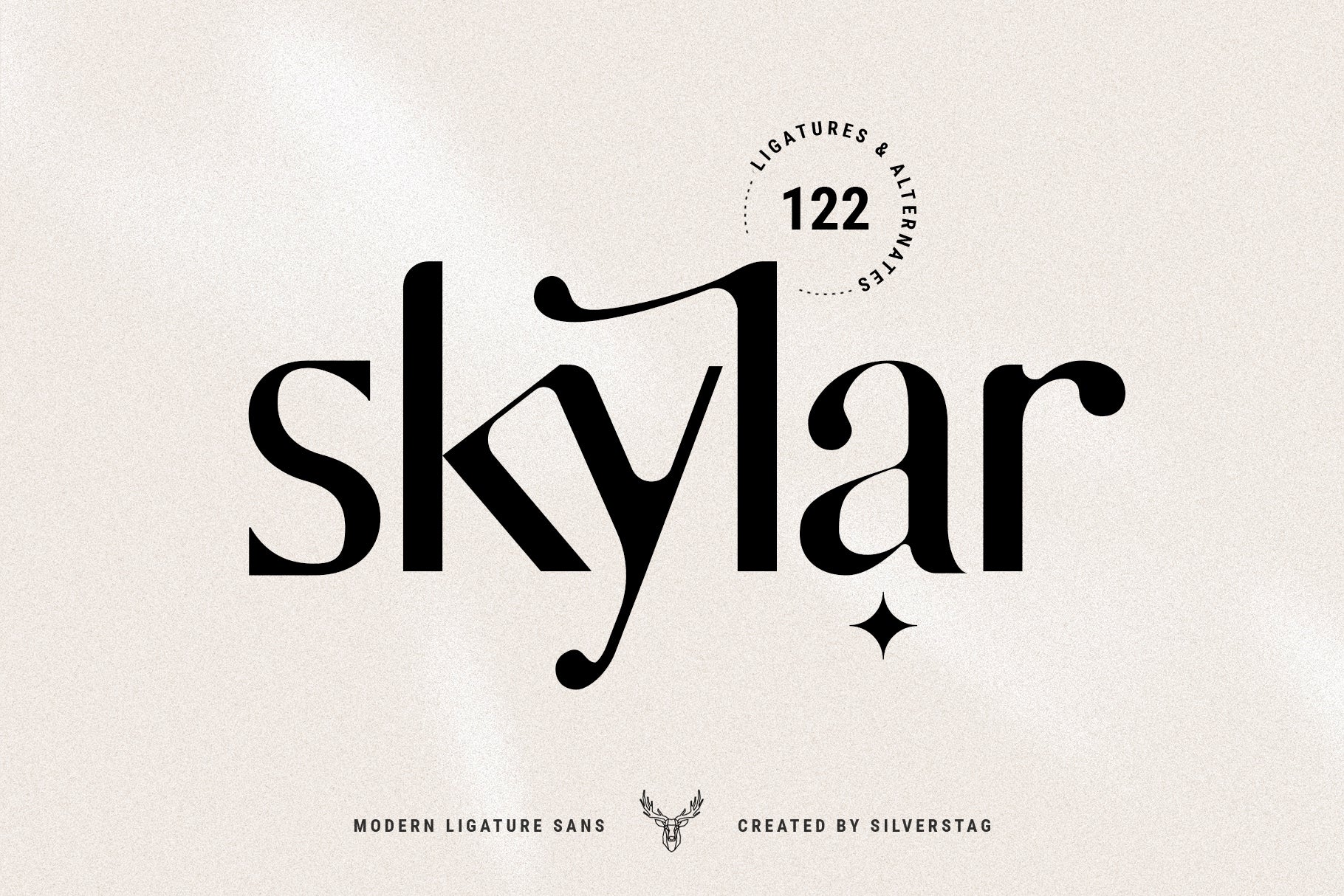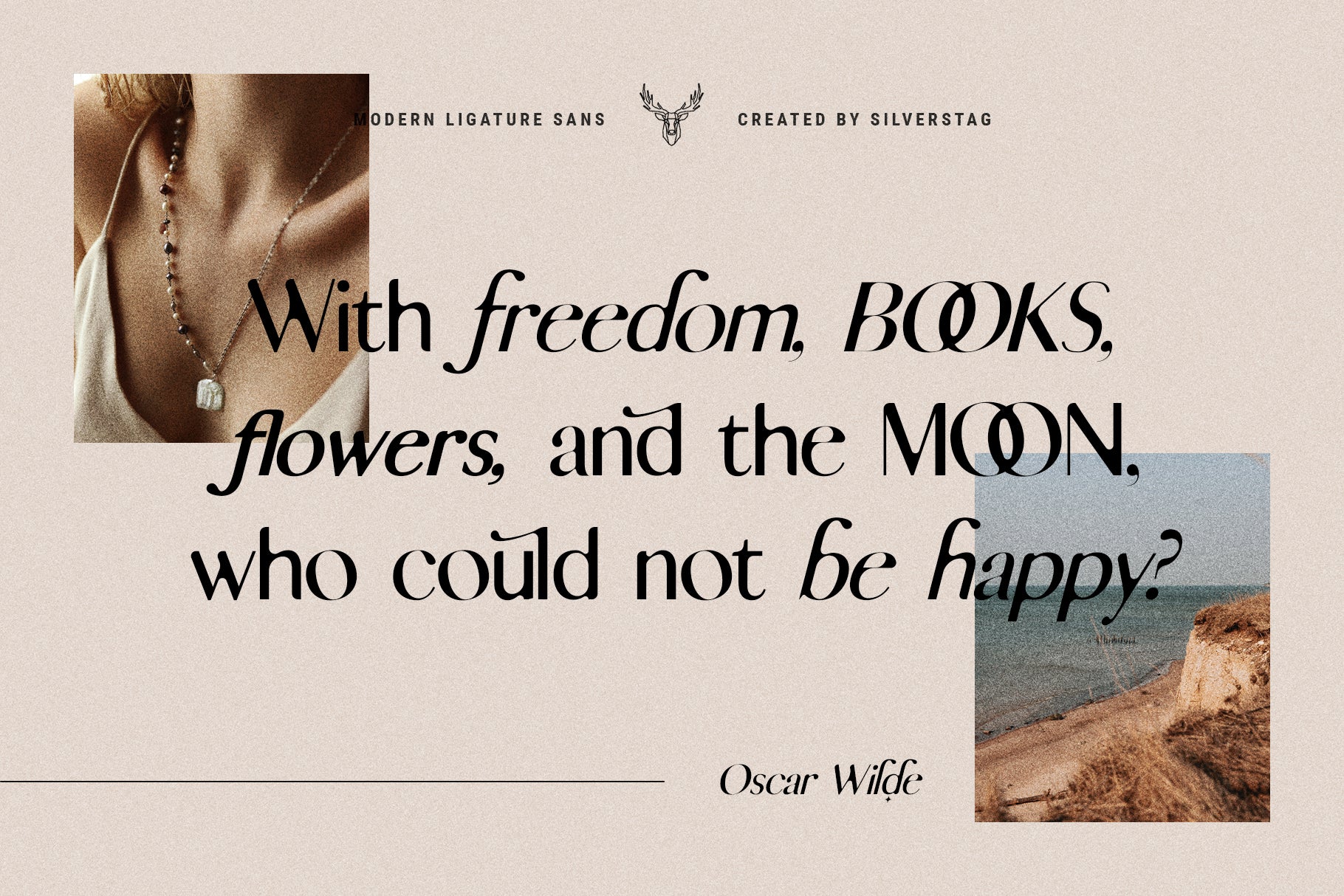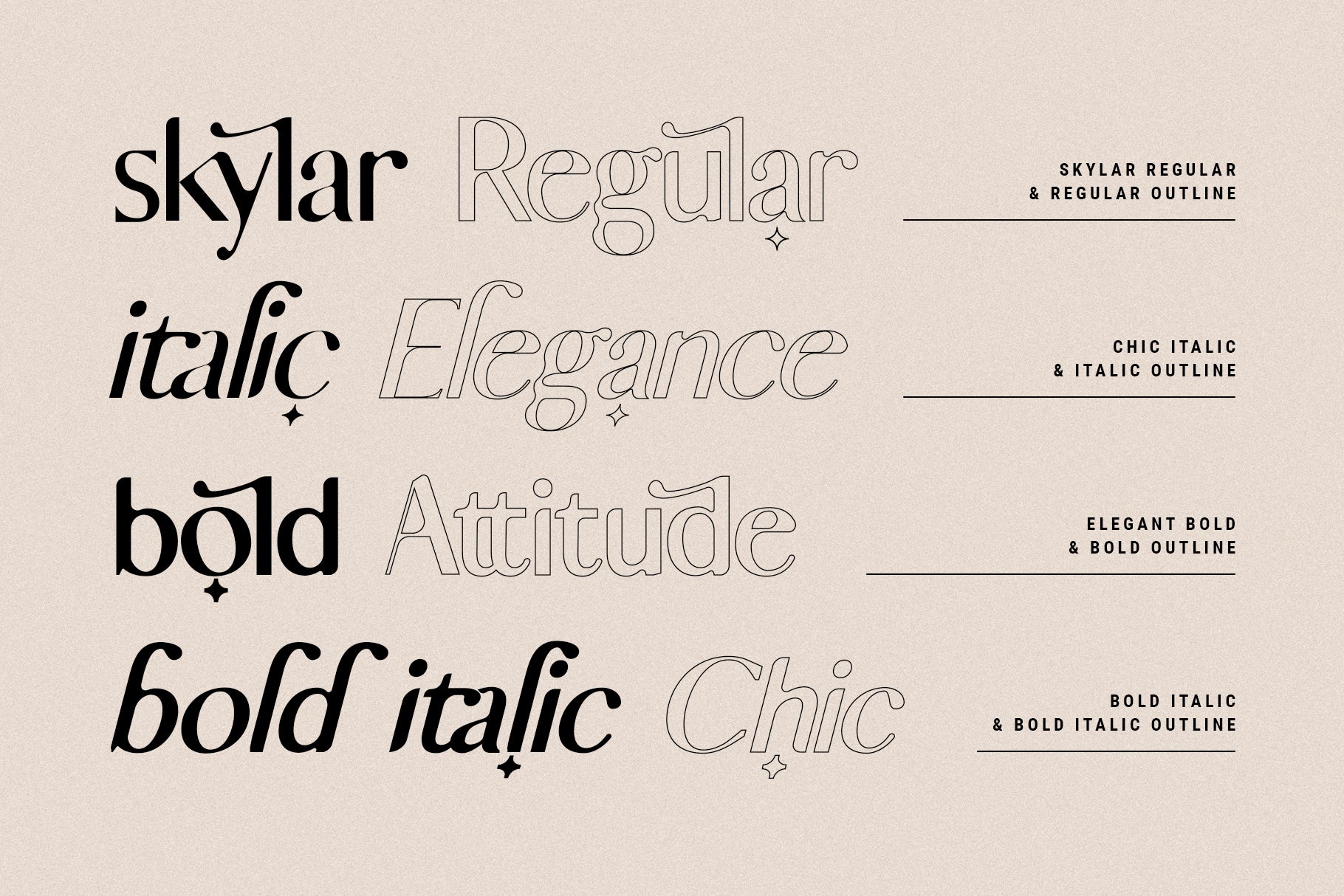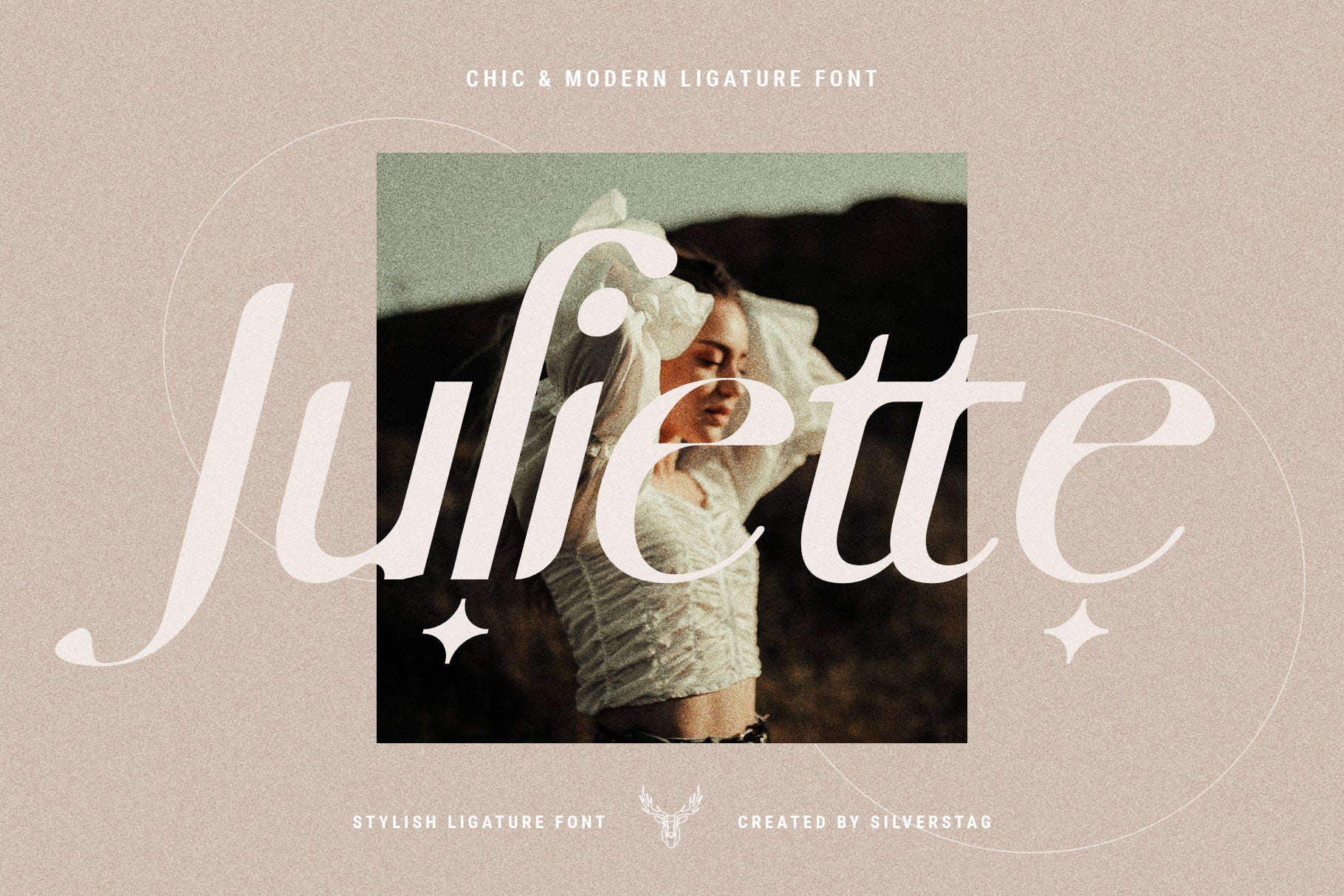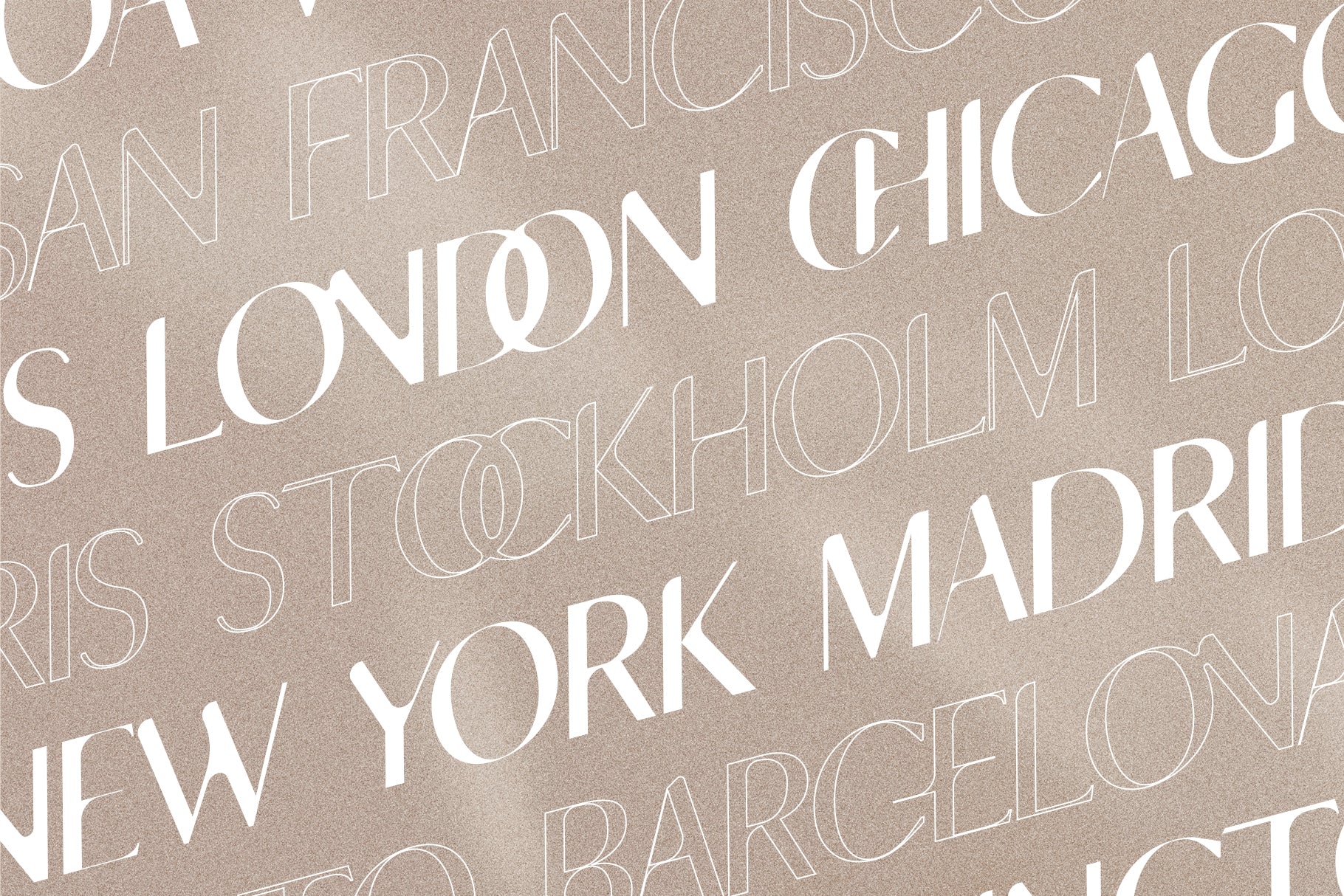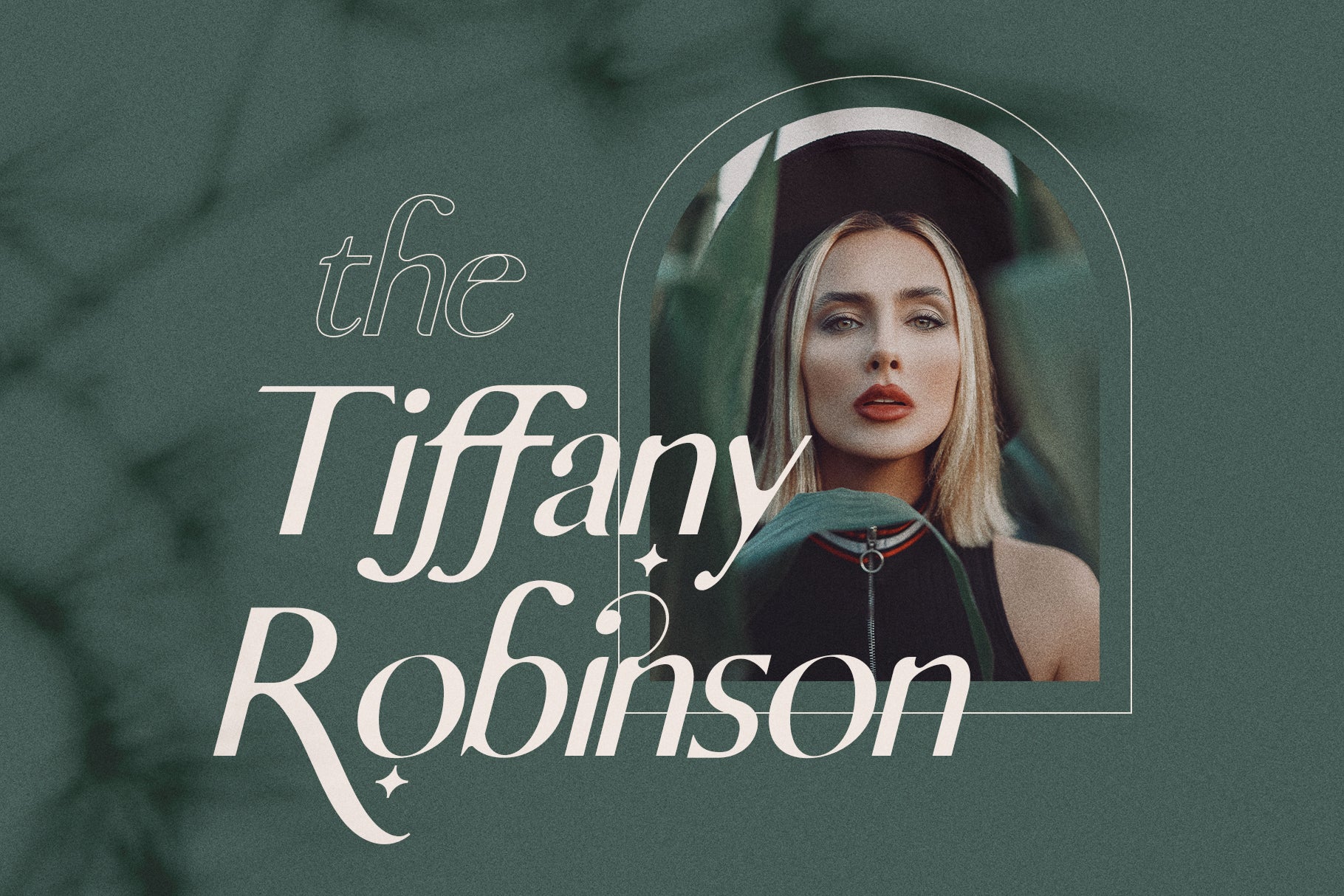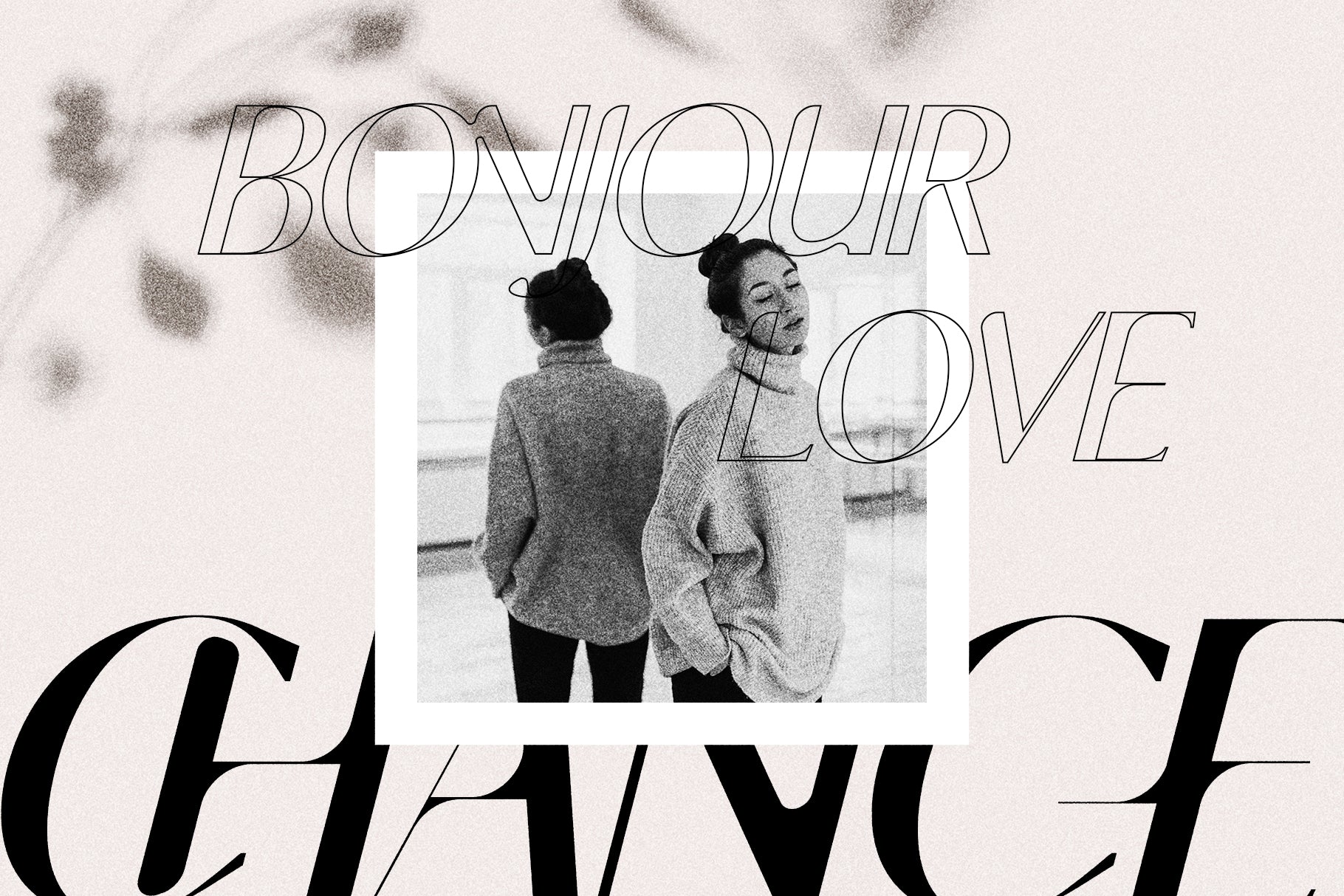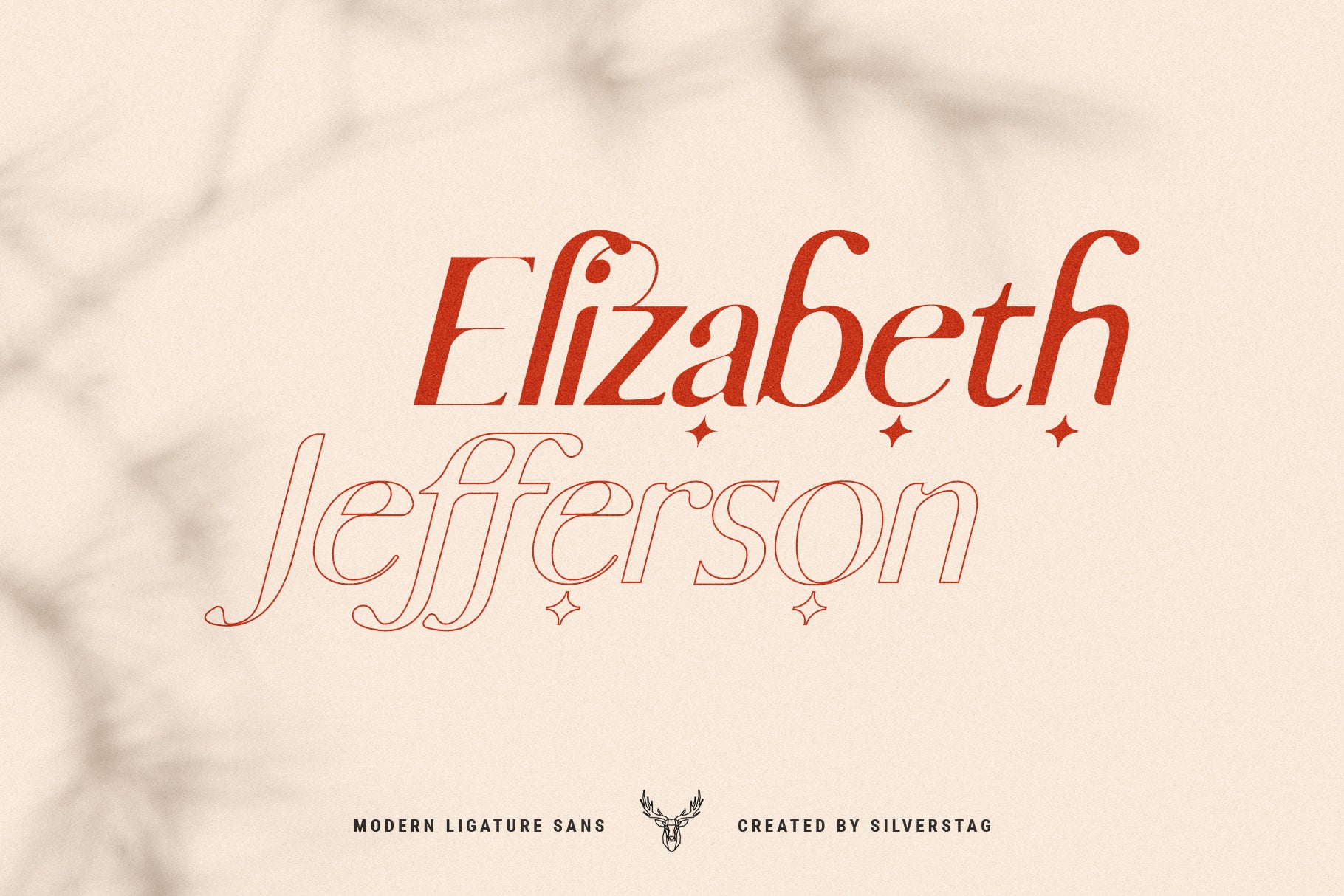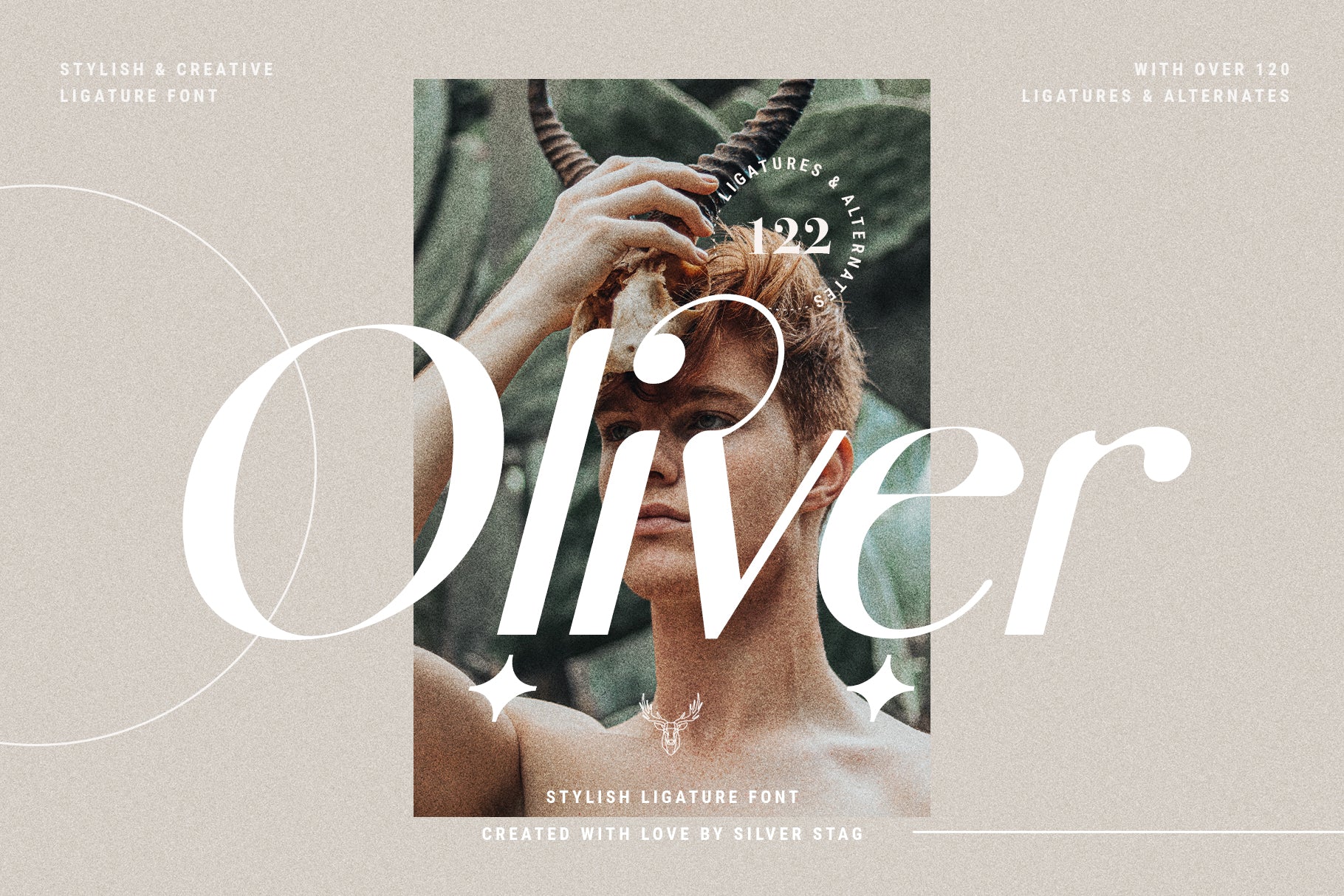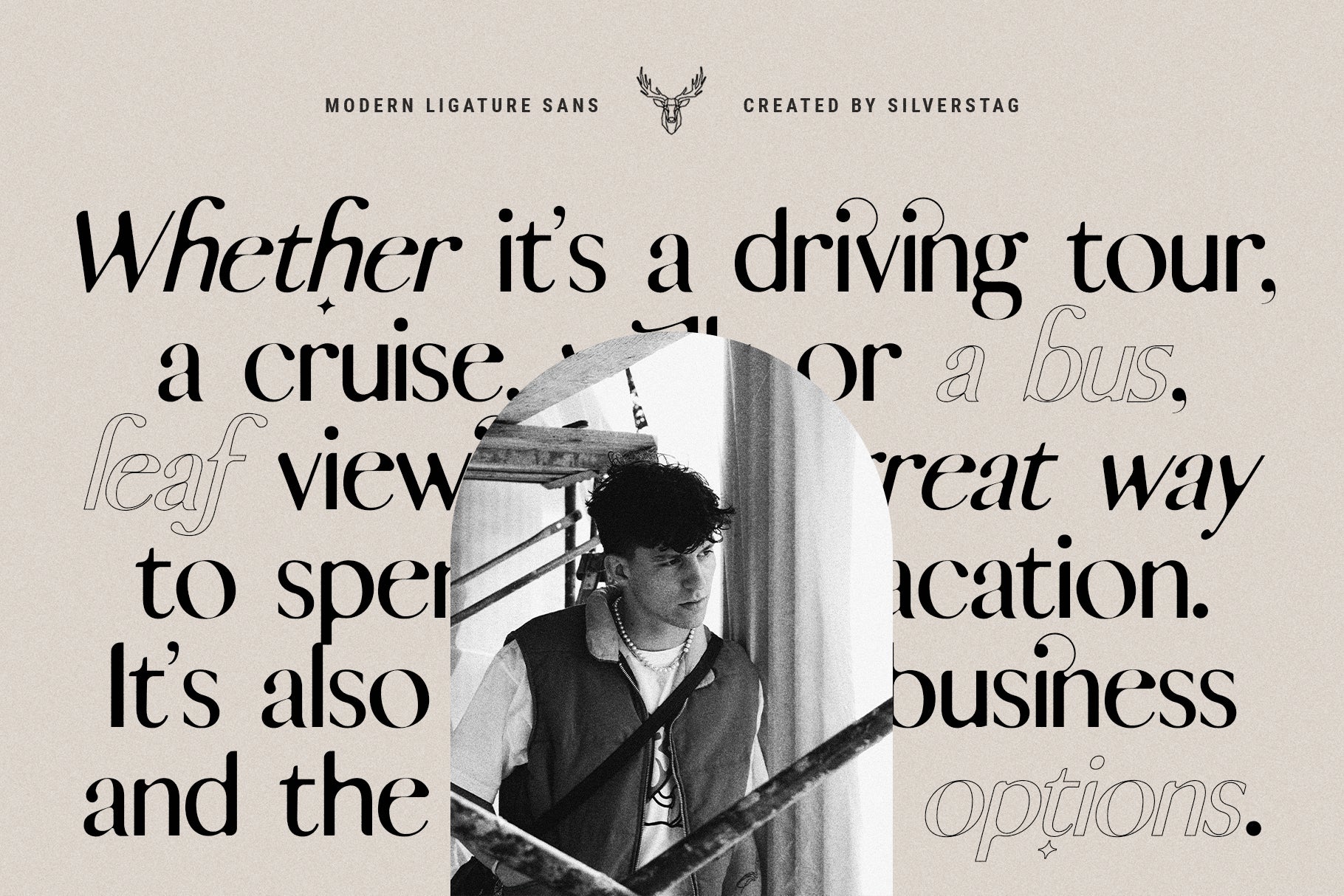
Skylar - Ligature Sans Font Family
Skylar is a bold, modern sans serif font family built for designers who want both clarity and creativity in one stylish package. Following the success of the original Skylar Regular, this extended release now includes 7 unique font variants—each featuring a wide range of refined ligatures and alternates.
With over 122 ligatures and alternates, Skylar introduces fresh ways to elevate your typography, from branding and logos to website headlines and editorial layouts. Every curve and connection has been meticulously crafted to balance clean design with expressive flair. Just take a look at the “ky” ligature to see how Skylar transforms ordinary text into visually captivating forms.
Whether you’re creating minimalist layouts, fashion-forward branding, or polished web interfaces, Skylar adapts with style and confidence.